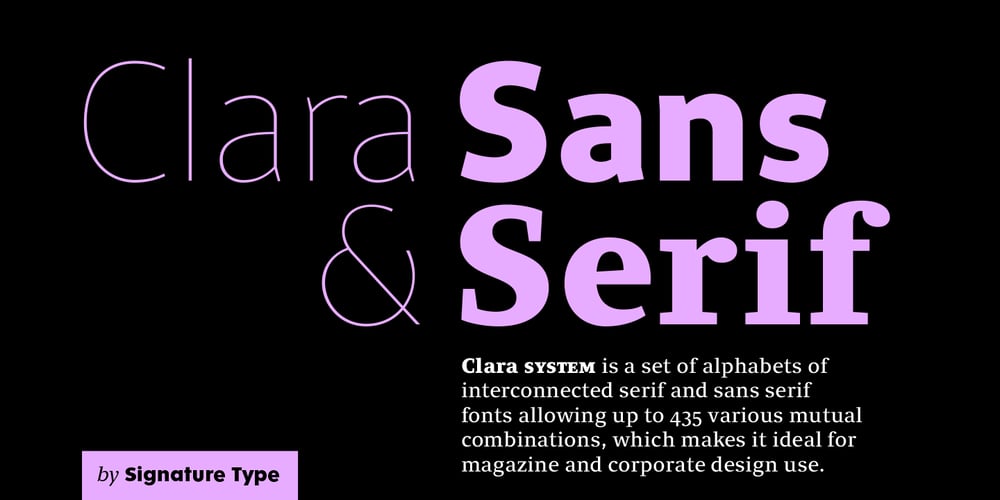
Clara Serif Font Family was designed by Rostislav Vaněk and published by Signature Type Foundry. Clara Serif contains 14 styles and family package options. Clara is a set of alphabets of interconnected serif and sans serif fonts. The connection is not only in the intensity of the strokes, i.e. in the identical brightness of the typesetting, but also in the drawing principles of both alphabets. The typeface aims to offer a sense of calmness for a reader even in smaller scales of the typesetting. In large scales it builds on the purity of the image without additional decorations. The Clara system includes maximum equipment of a Latin font from Thin to Black in all versions of marking fonts, italics, capital letters and four kinds of numbers. The typeface allows typesetting of the vast majority of cultural languages of the world.